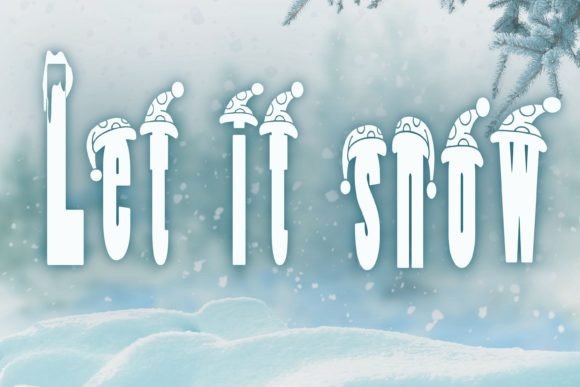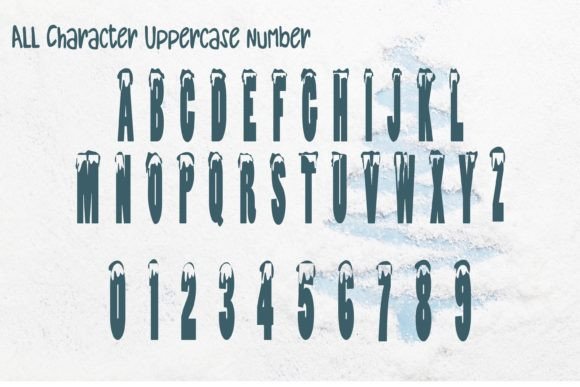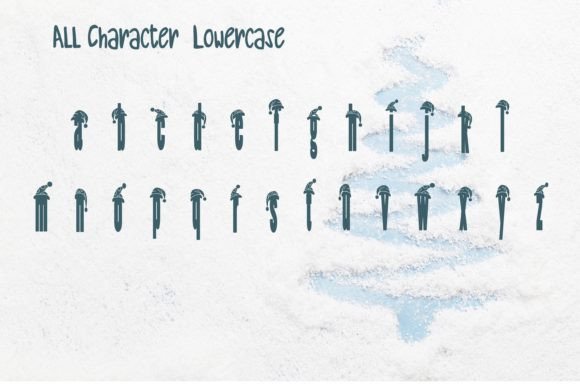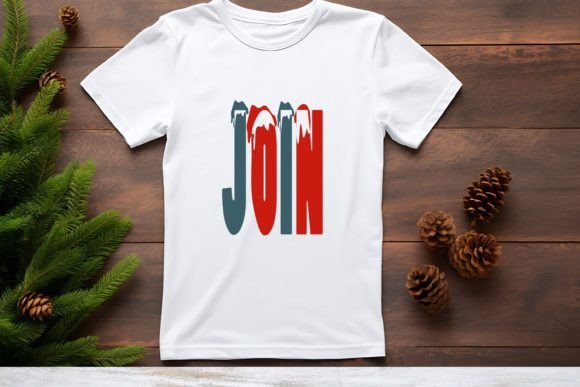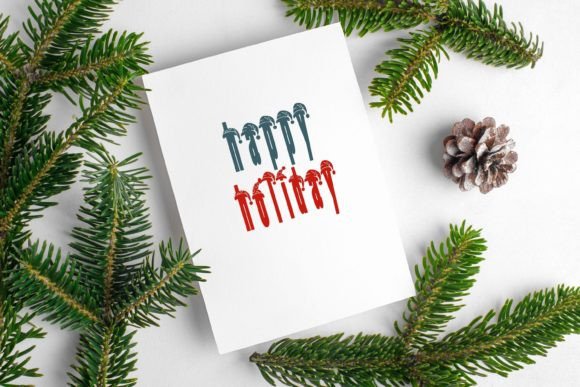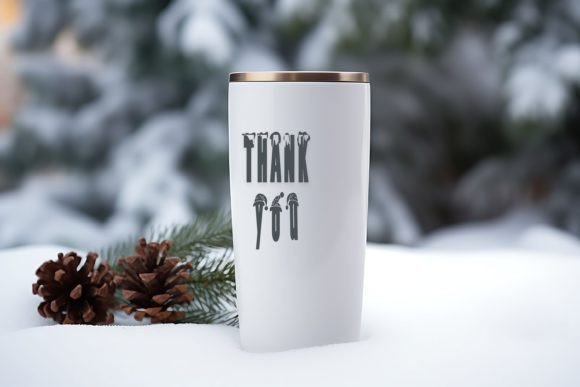
Introduction to Snow Town Font
As you sit by the window, sipping hot cocoa and gazing out at the snow-covered landscape, you can’t help but feel the magic of winter. The soft, gentle flakes gently falling onto the ground below, the sound of laughter and carolers in the distance – it’s the perfect time to get creative and infuse your designs with the whimsy of the season.
| 👤 Author | PJ Fonttein |
That’s where the Snow Town Font comes in – a delightful, high-quality decorative font that captures the essence of a snow-covered village in every curve and swirl. With its soft, rounded edges and intricate snowflake details, this font is perfect for designers looking to add a touch of frosty charm to their projects. Whether you’re creating holiday cards, festive banners, or winter-themed event posters, the Snow Town Font is a valuable resource that’s sure to make your designs sparkle like fresh snow.
Key Features of Snow Town Font
- High-quality design resource ideal for creative projects, such as winter-themed posters, invitations, and social media graphics.
- Unique characteristics include a whimsical and playful feel, making it perfect for winter-themed designs, children’s projects, and festive events.
Honest Review: Snow Town Font
I recently stumbled upon the Snow Town Font, and I must say, it’s a great addition to any design resource collection. This font is perfect for creative projects that need a touch of winter magic.
- ✨ High-quality design: The Snow Town Font is well-crafted and has a unique, playful feel to it.
- ⚠️ Limited font styles: The Snow Town Font only comes in a few styles, which might limit its versatility.
- ⚠️ Not ideal for large text: The font’s design makes it more suitable for smaller text sizes, which might not be ideal for headings or titles.
Overall, the Snow Town Font is a great design resource for creative projects, especially those with a winter or snowy theme. While it has some limitations, its unique design and high-quality feel make it a worthwhile addition to any design collection.
How to Use Snow Town Font
The Snow Town Font is a high-quality design resource perfect for creative projects that require a unique and festive touch. With its transparent background, this font is ideal for overlaying on images or using as a standalone element.
Tips for Getting the Most Out of Snow Town Font
To get the most out of the Snow Town Font, consider the following tips:
- Use the font in conjunction with other winter-themed design elements
- Experiment with different font sizes and colors to achieve the desired effect
- Combine the font with a transparent background to create a sense of depth
Common Use Cases for Snow Town Font
The Snow Town Font is ideal for the following types of projects:
- Winter-themed designs, such as holiday cards or gift tags
- Outdoor event invitations or promotional materials
- Children’s party invitations or decorations